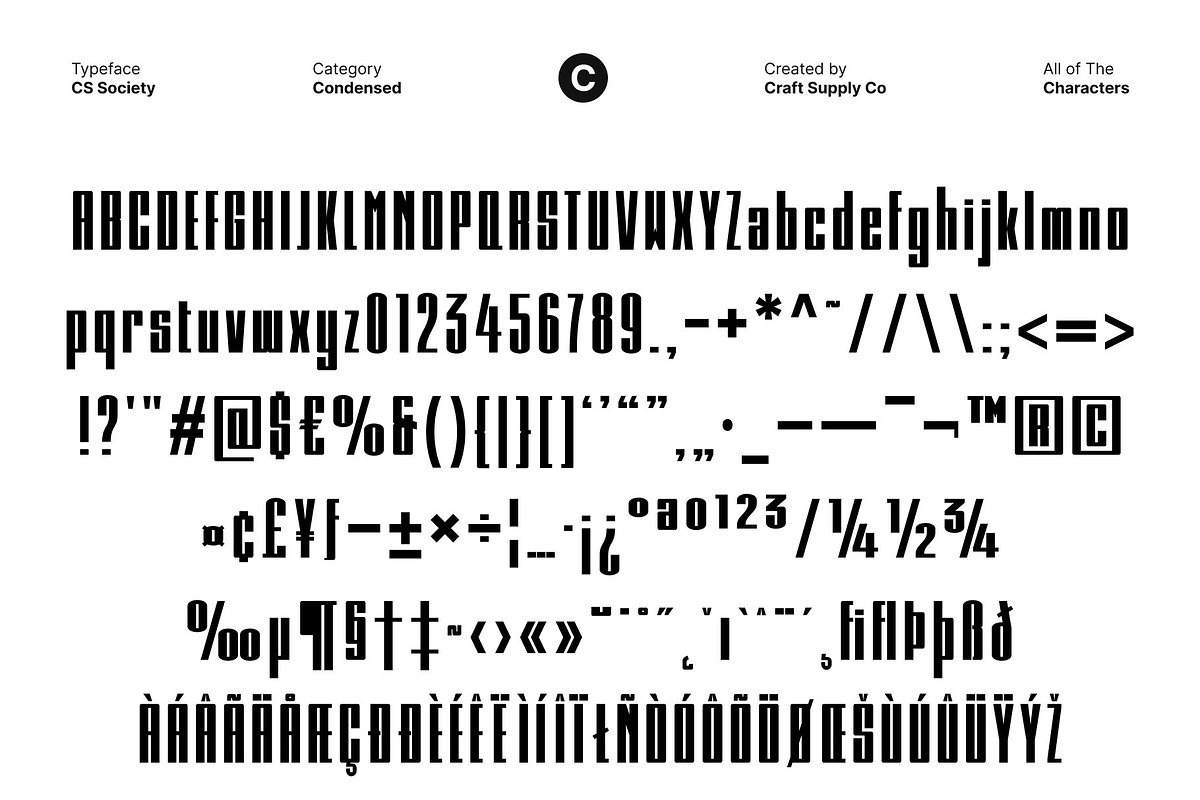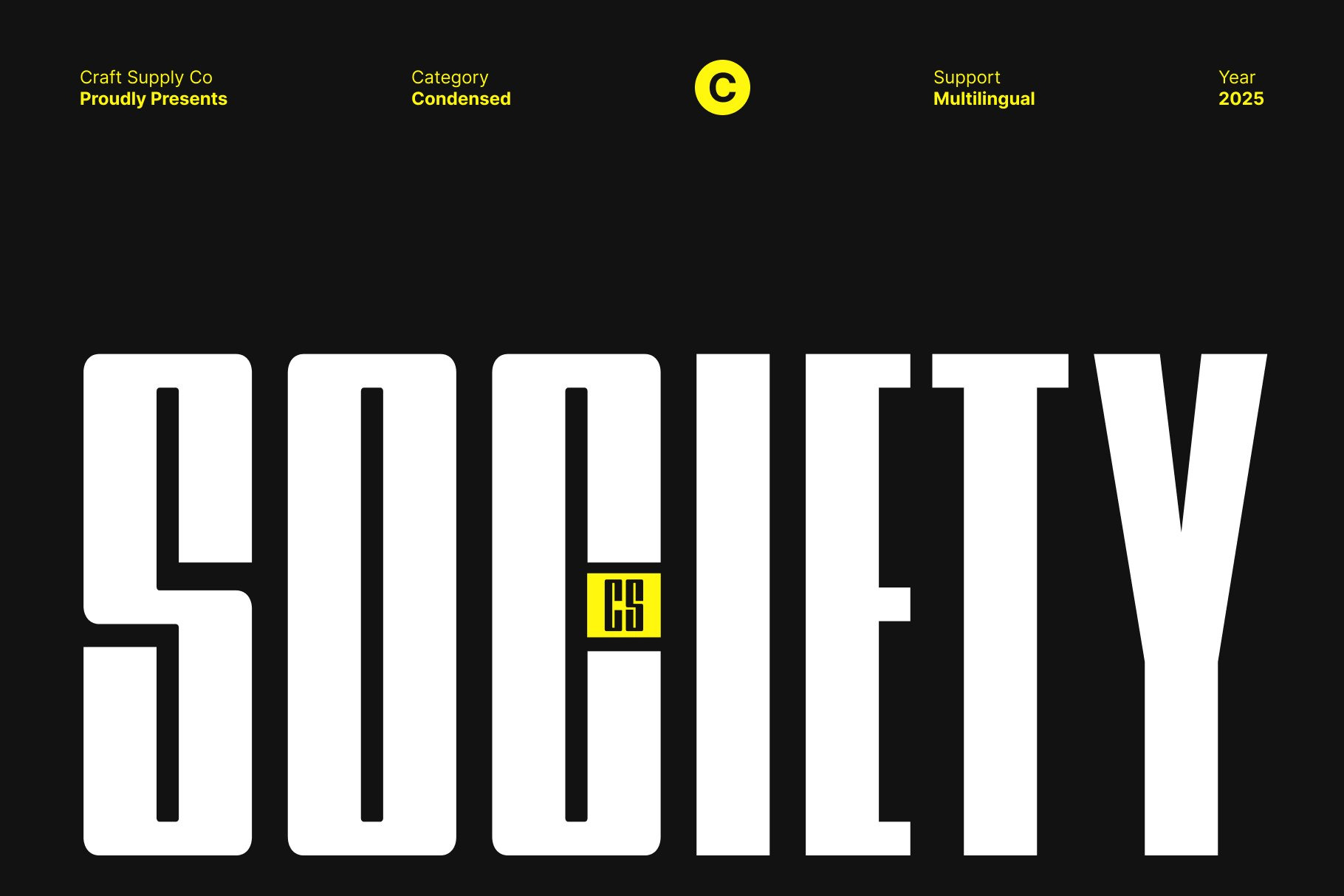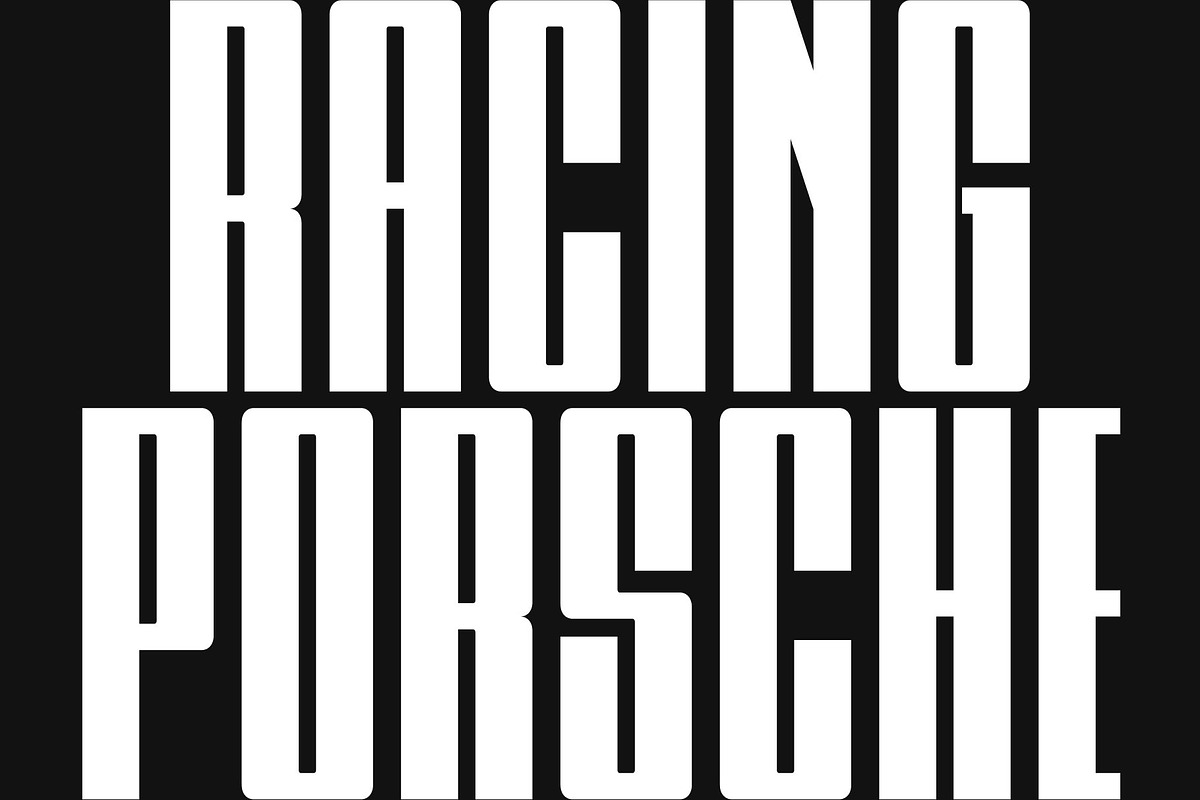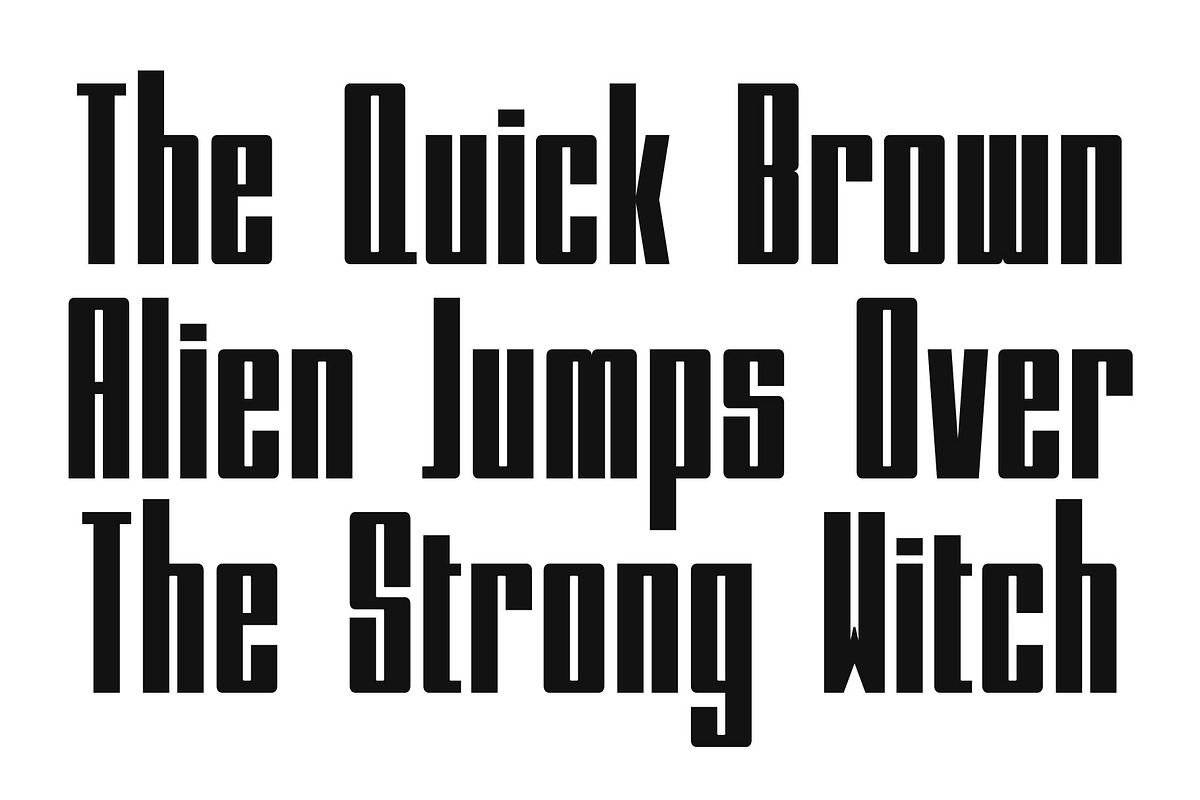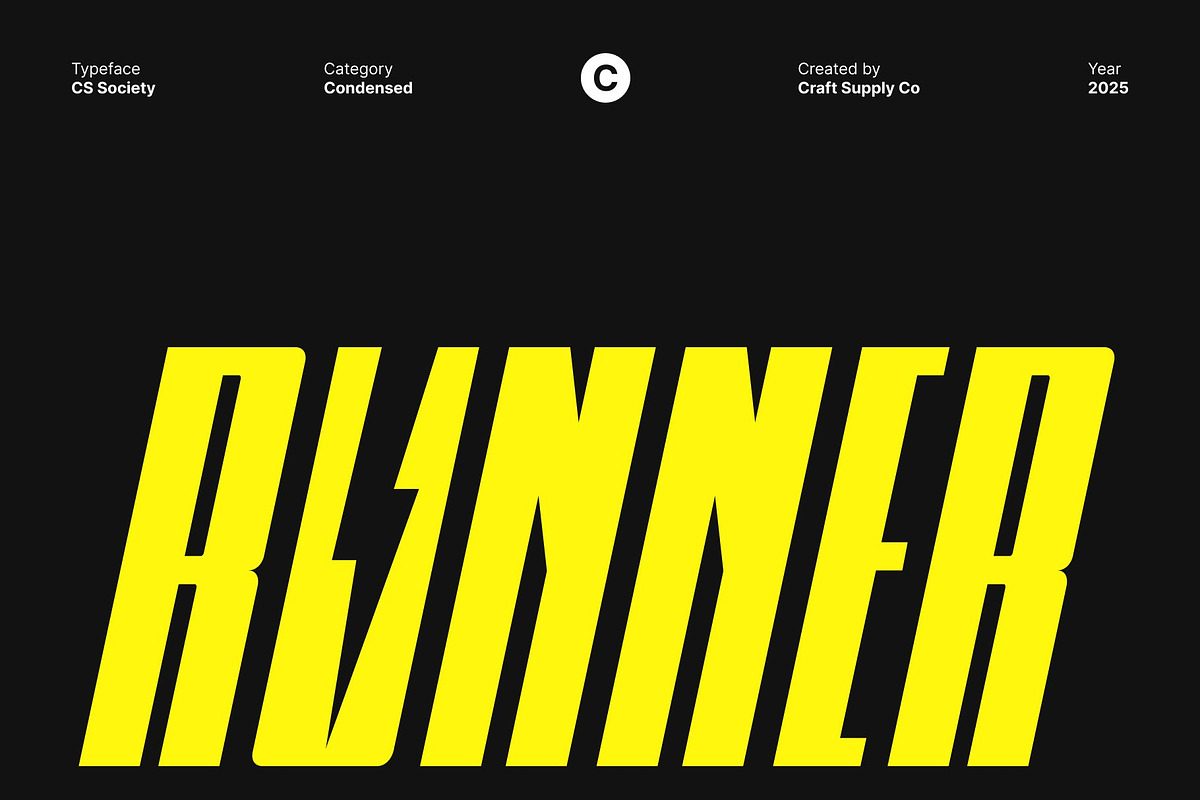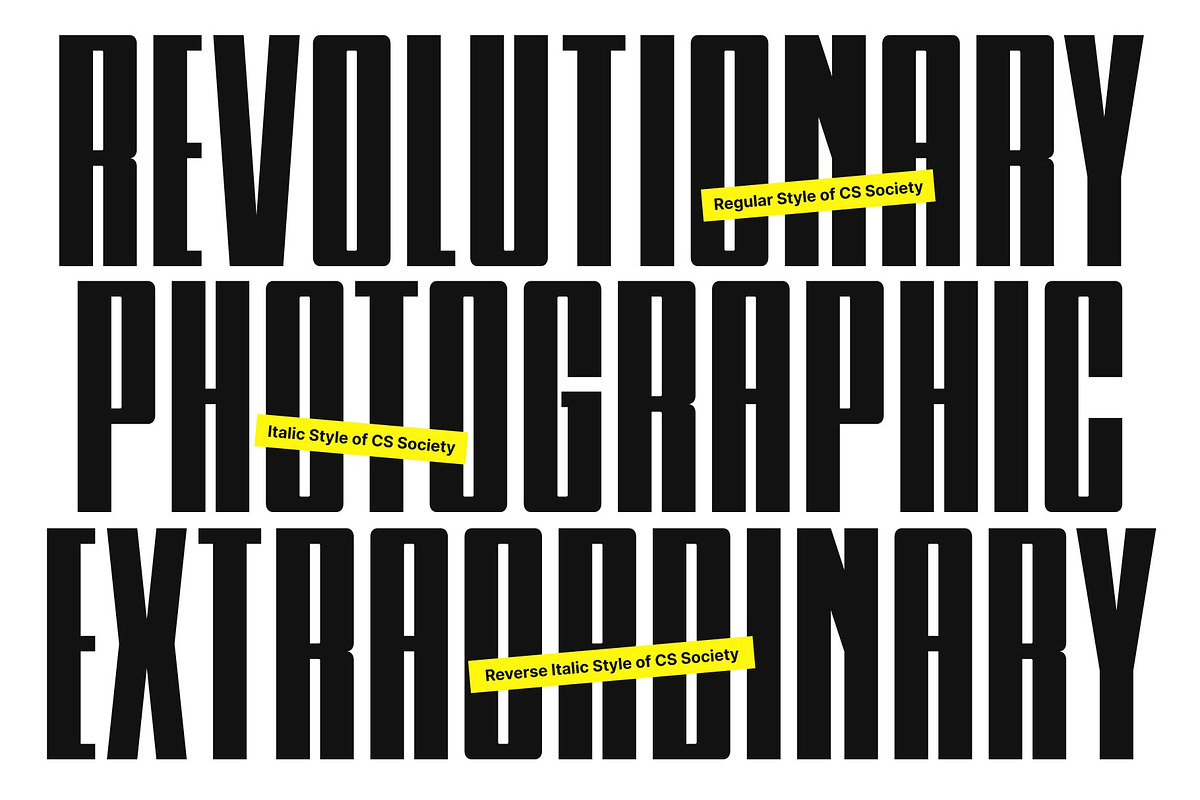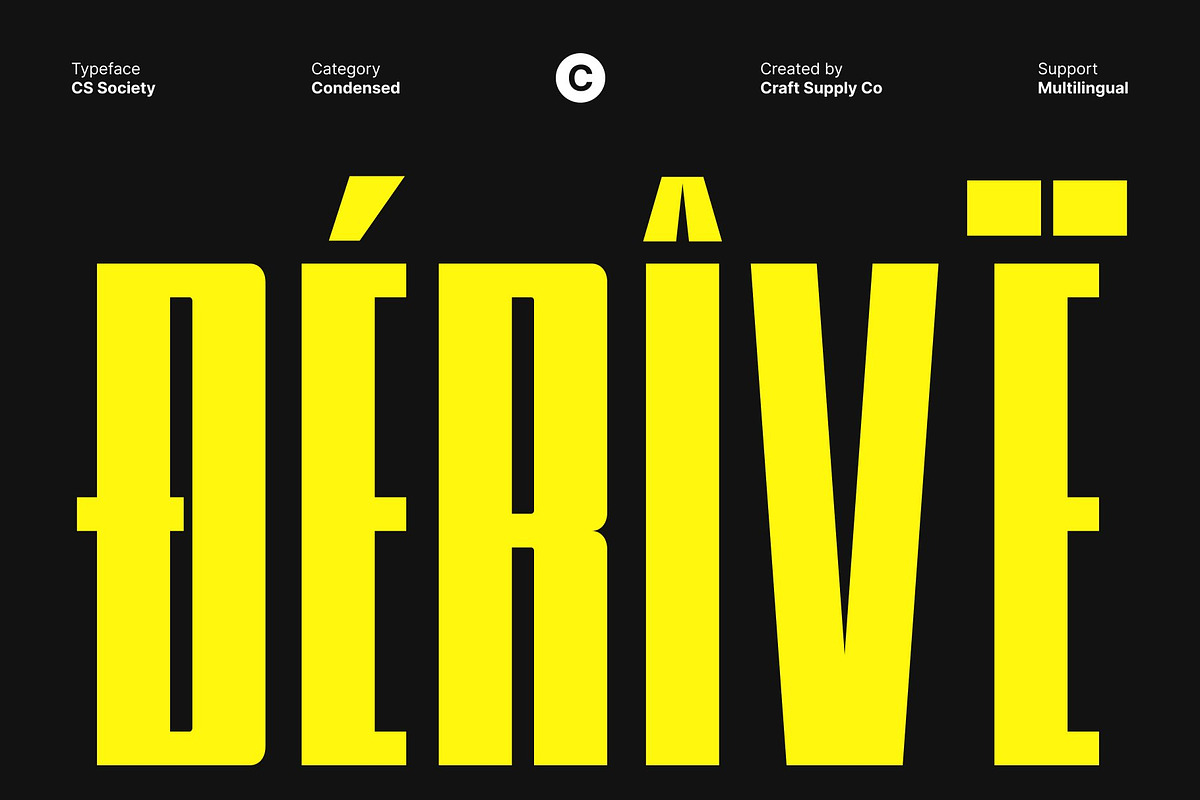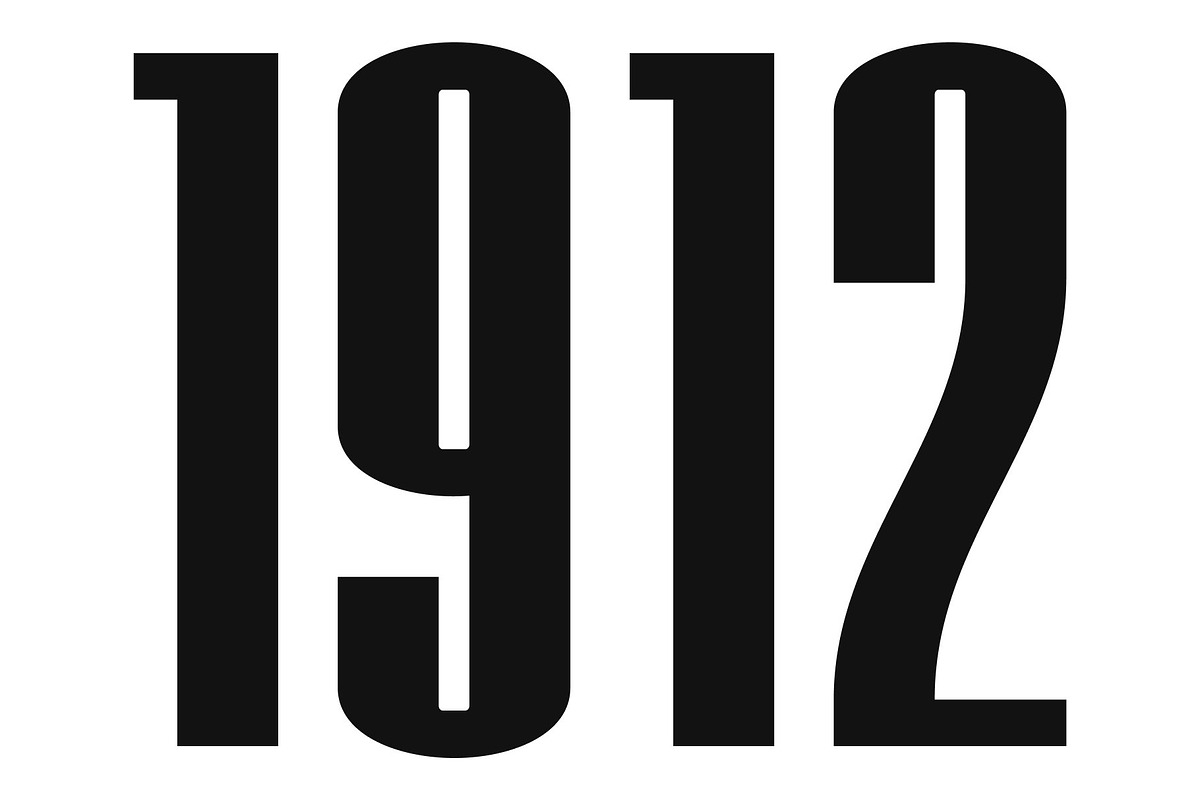
CS Society – Condensed Font
CS Society – Condensed Sans Serif Font with Modern Power
Streamlined Form for Maximum Space Efficiency This is a condensed sans serif font crafted to deliver maximum impact in minimal space. Its compact proportions allow designers to fit more text into tight layouts without losing clarity or style. This efficient structure makes the font a reliable choice for headlines, banners, and poster designs that require strong visual presence while maintaining readability.
Bold Appearance with Clean Modern Lines This font brings together strength and simplicity through its bold strokes and modern geometry. The clean lines reinforce a contemporary feel, making the font ideal for brands that value confidence and clarity. The bold design ensures that messages stand out effortlessly, helping your visuals communicate authority and professionalism in various design settings.
Consistent Readability in Every Size Despite its condensed width, maintains high readability across different sizes and formats. Each character is shaped with intentional spacing and structural consistency, creating text that remains crisp and legible even in dense compositions.
Versatile for Branding, Posters, and More From dynamic posters to standout branding and editorial layouts, this font adapts to a wide range of design needs. Its strong personality transforms simple words into striking focal points. Whether you want to build a bold identity, enhance visual hierarchy, or create attention-grabbing titles.
- CS Society Regular
- CS Society Italic
- CS Society Reverse Italic